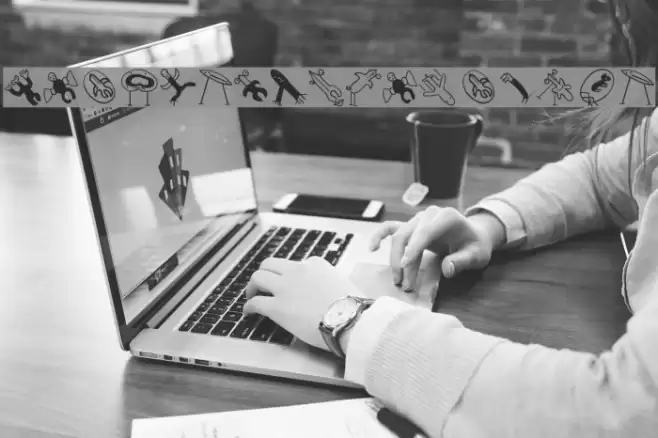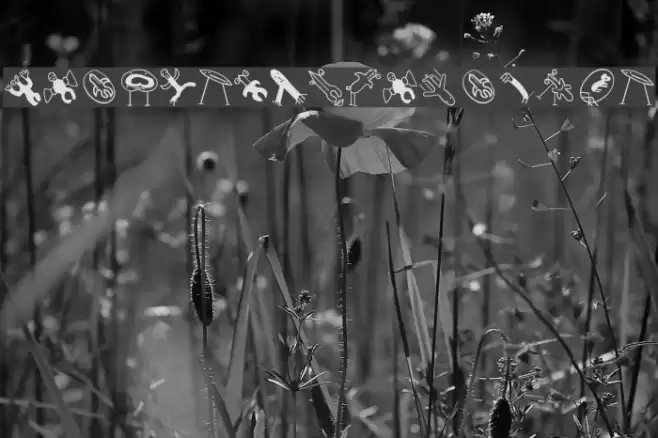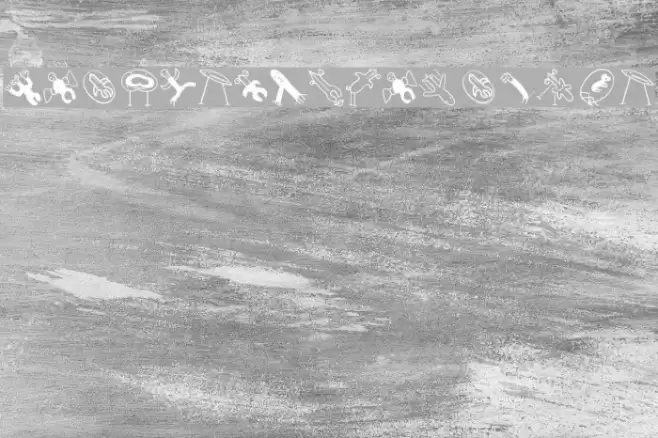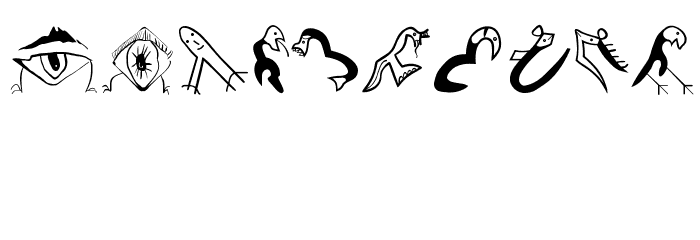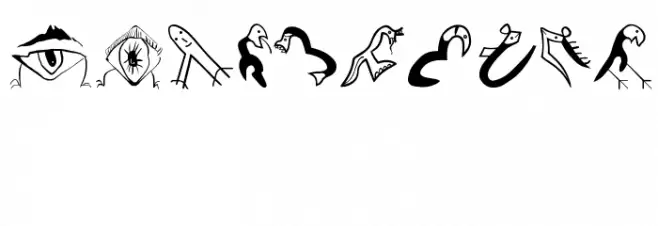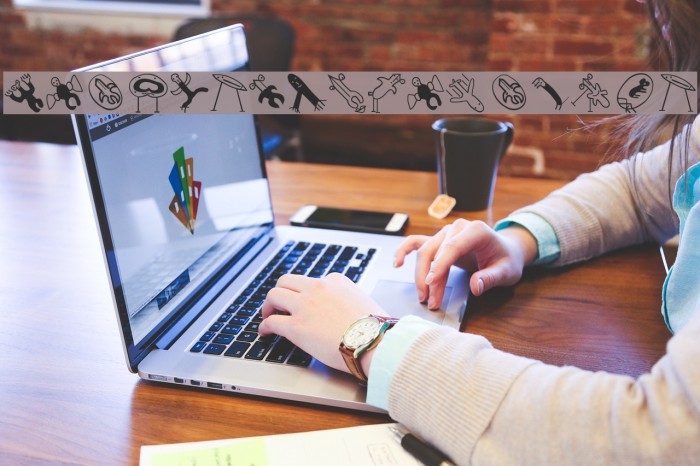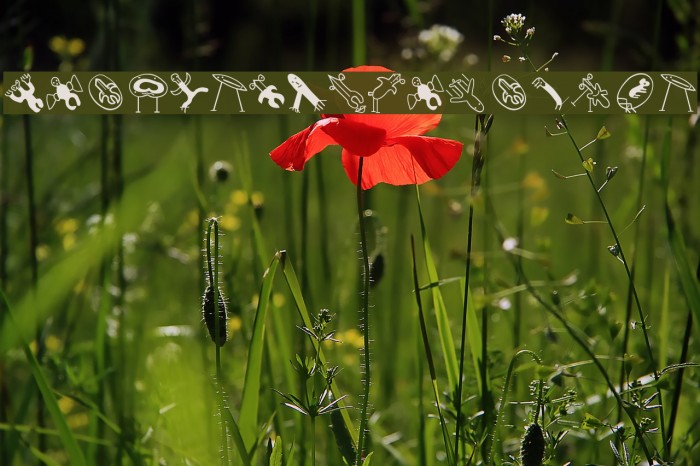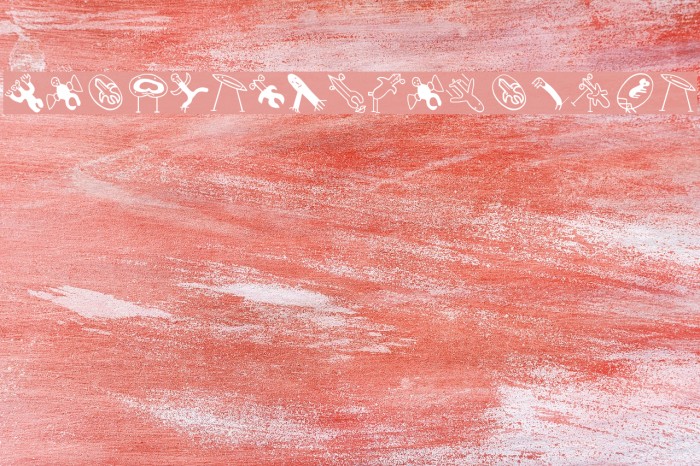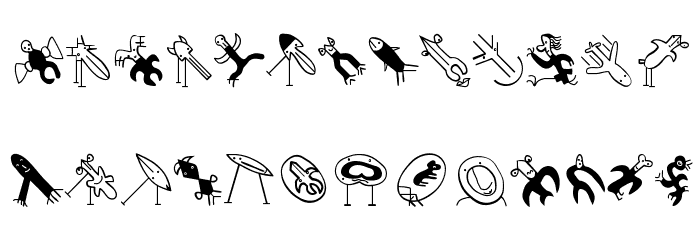
EasterAnimalsFour Font
EasterAnimalsFour Description
This font is a whimsical and playful collection of abstract animal-like shapes and symbols. Each character is uniquely designed, resembling various creatures with exaggerated features and imaginative forms. The style is highly decorative, with a strong emphasis on creativity and artistic expression. The characters are bold and visually striking, making them ideal for projects that require a fun and unconventional aesthetic. The font's design is consistent throughout, maintaining a cohesive theme of abstract animal motifs.
A playful, decorative font featuring abstract animal-like symbols from Uncategorized fonts.
- Proposed Projects: Ideal for children's book illustrations, creative posters, unique branding projects, and artistic designs that require a whimsical touch.
- Use Case: Logos, Posters, Artistic Designs